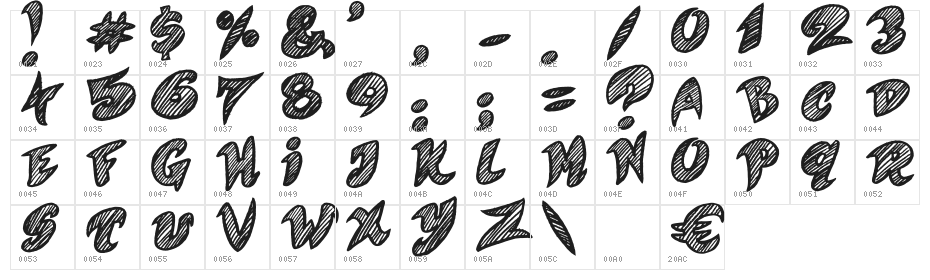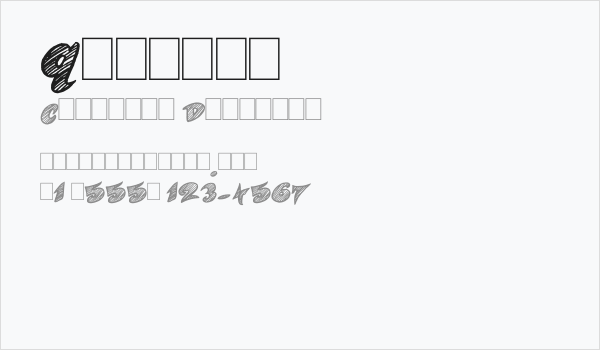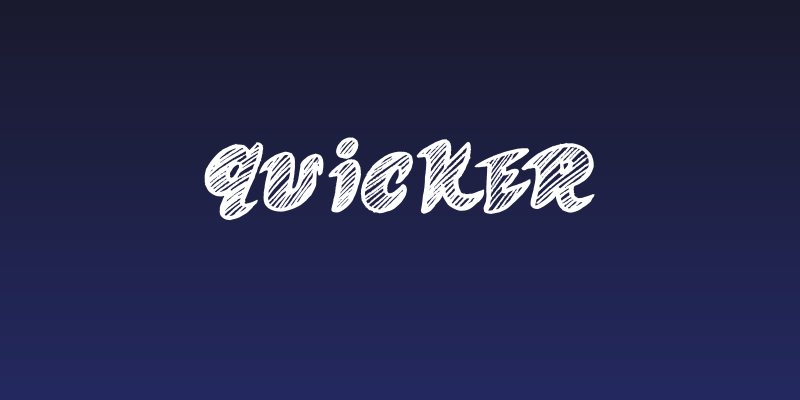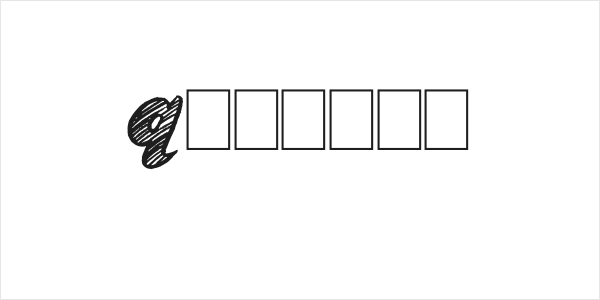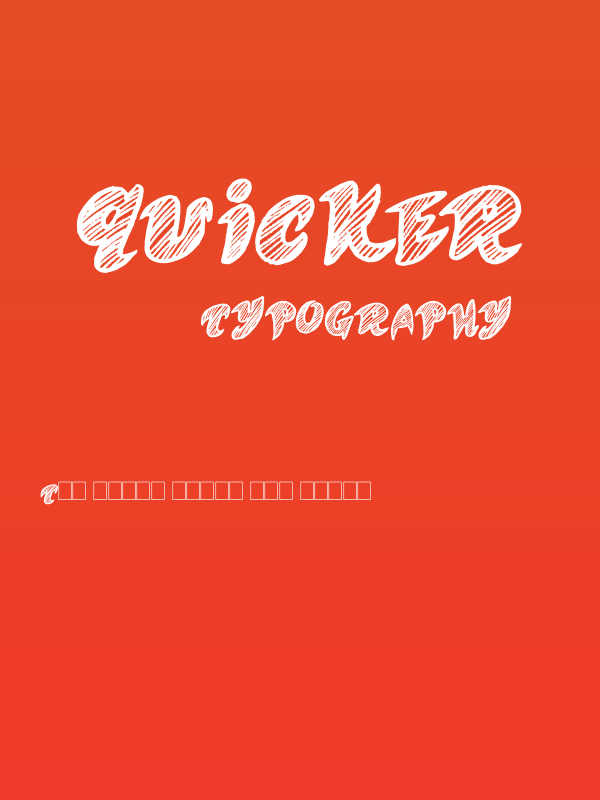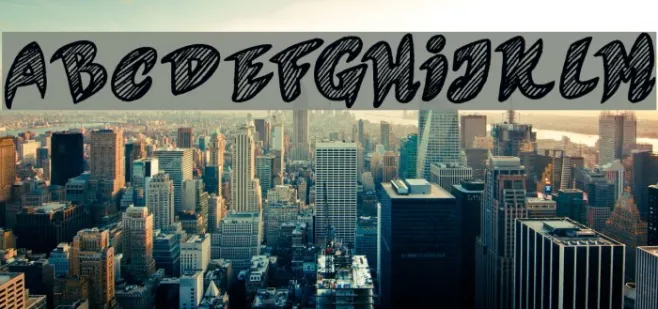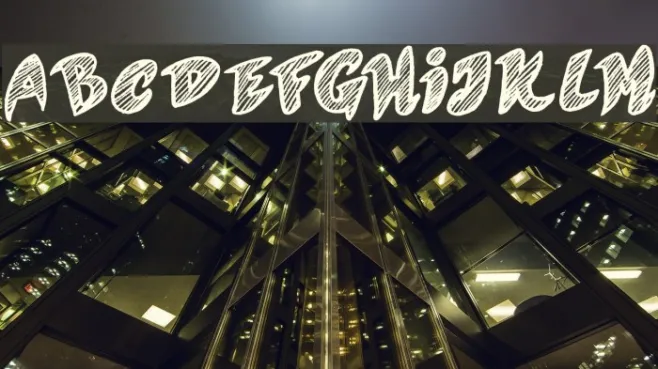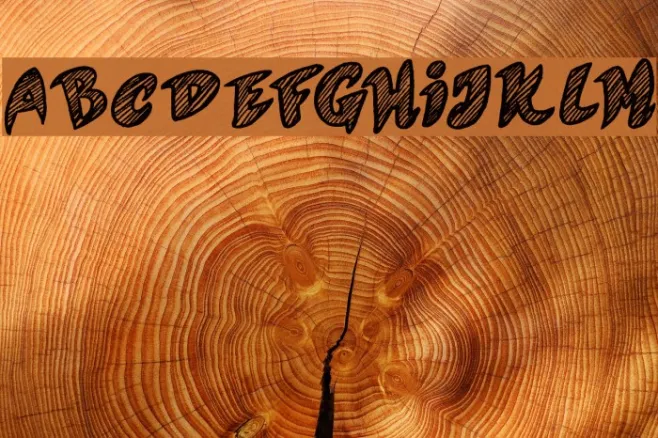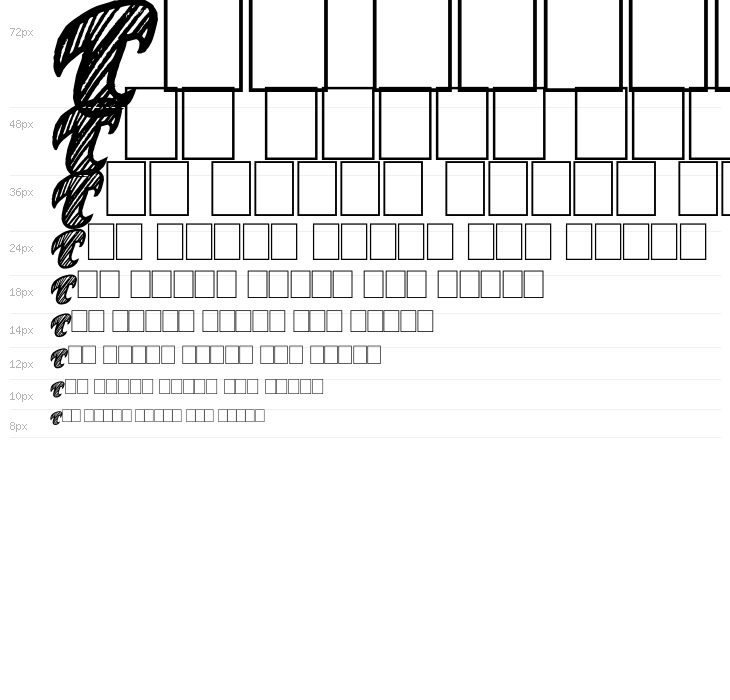
Quicker Font
Quicker Description
This font features a bold, dynamic style with a hand-drawn, sketch-like appearance. The uppercase letters are characterized by thick strokes with diagonal hatching, giving them a textured, three-dimensional look. The numbers and special characters maintain this bold, sketchy aesthetic, ensuring consistency across all glyphs. The font's playful and energetic vibe makes it stand out, ideal for projects that require a touch of creativity and flair. Its unique style is both eye-catching and memorable, making it suitable for various design applications.
| Proposed Projects | Ideal for posters, comic book titles, children's book covers, and creative branding. |